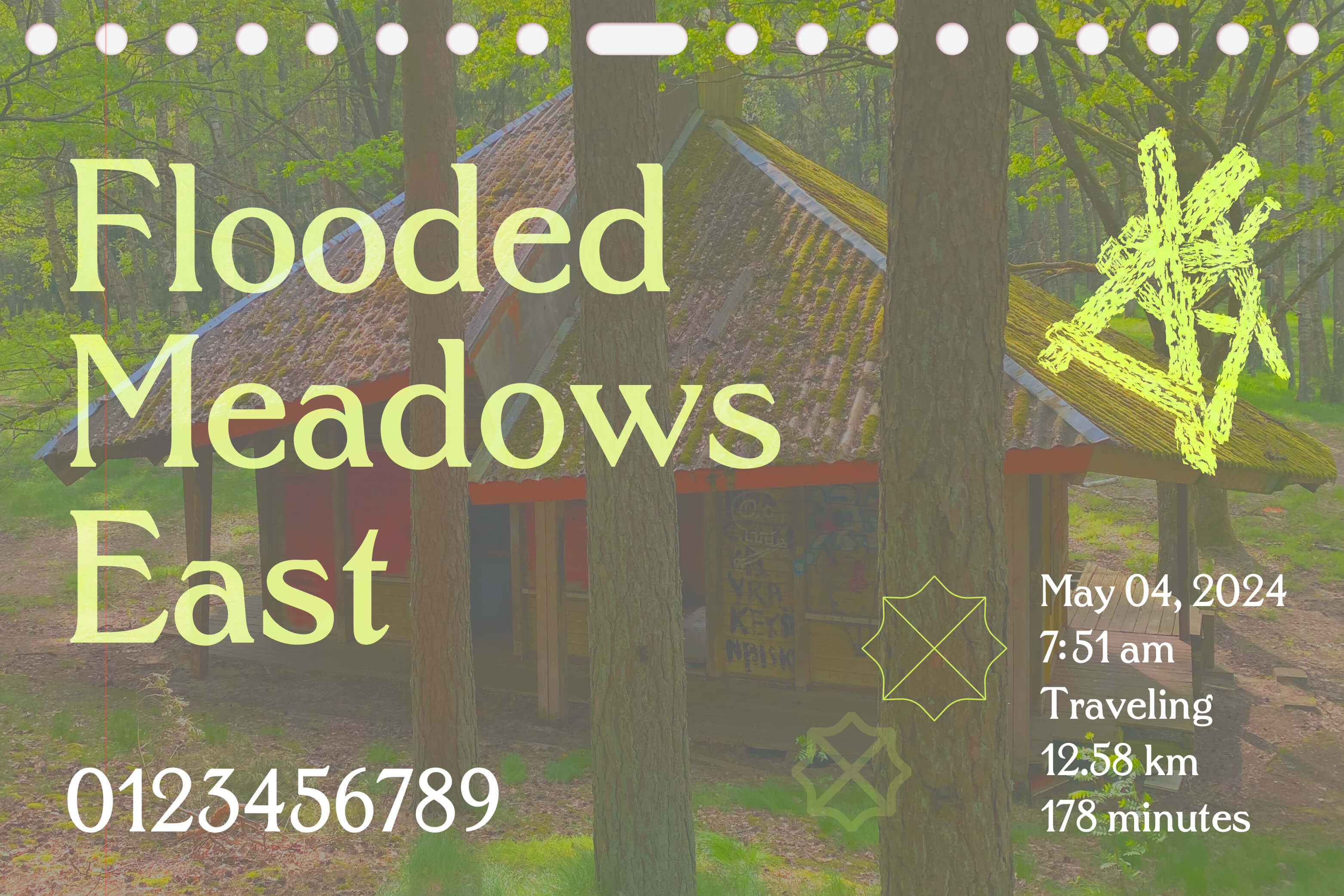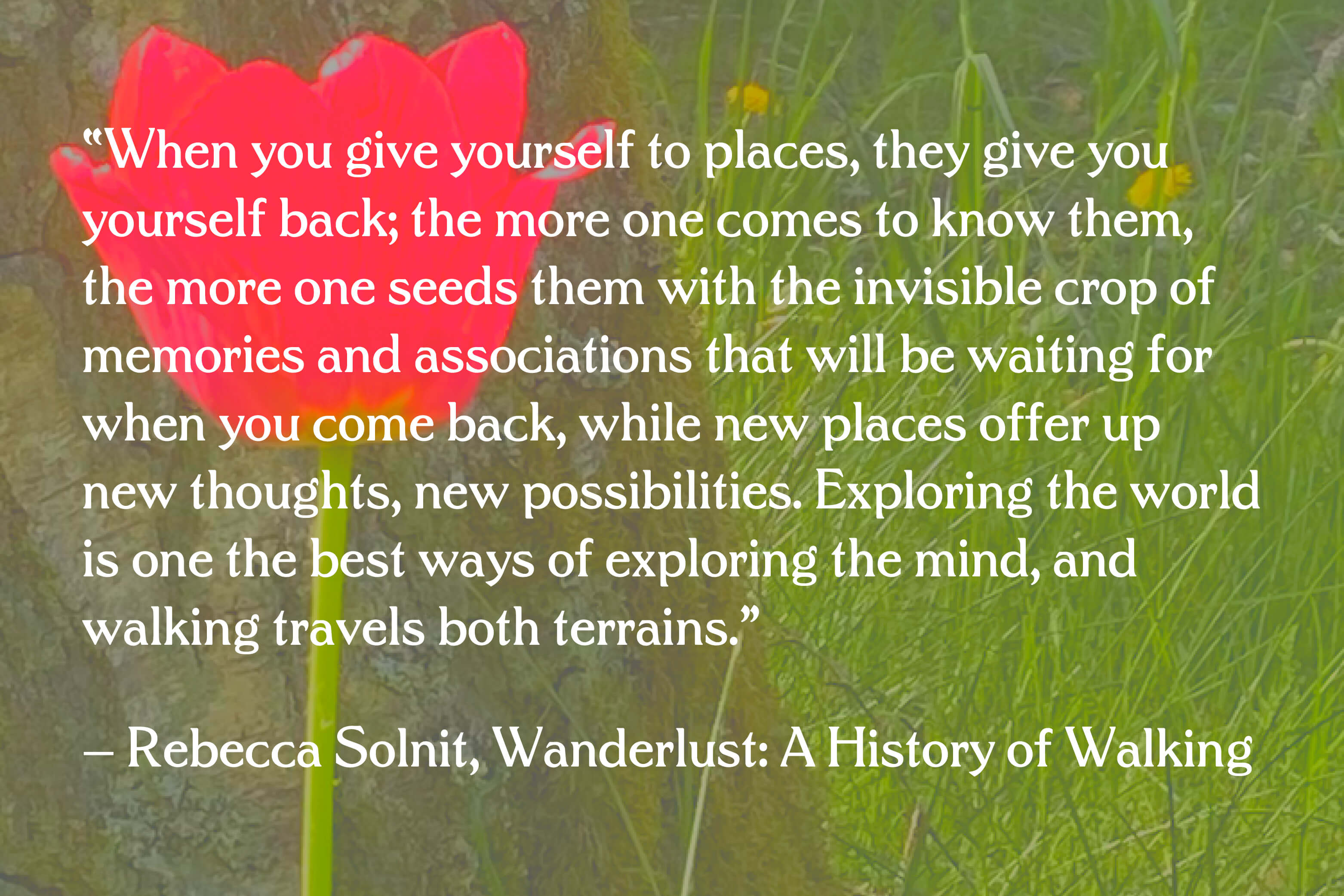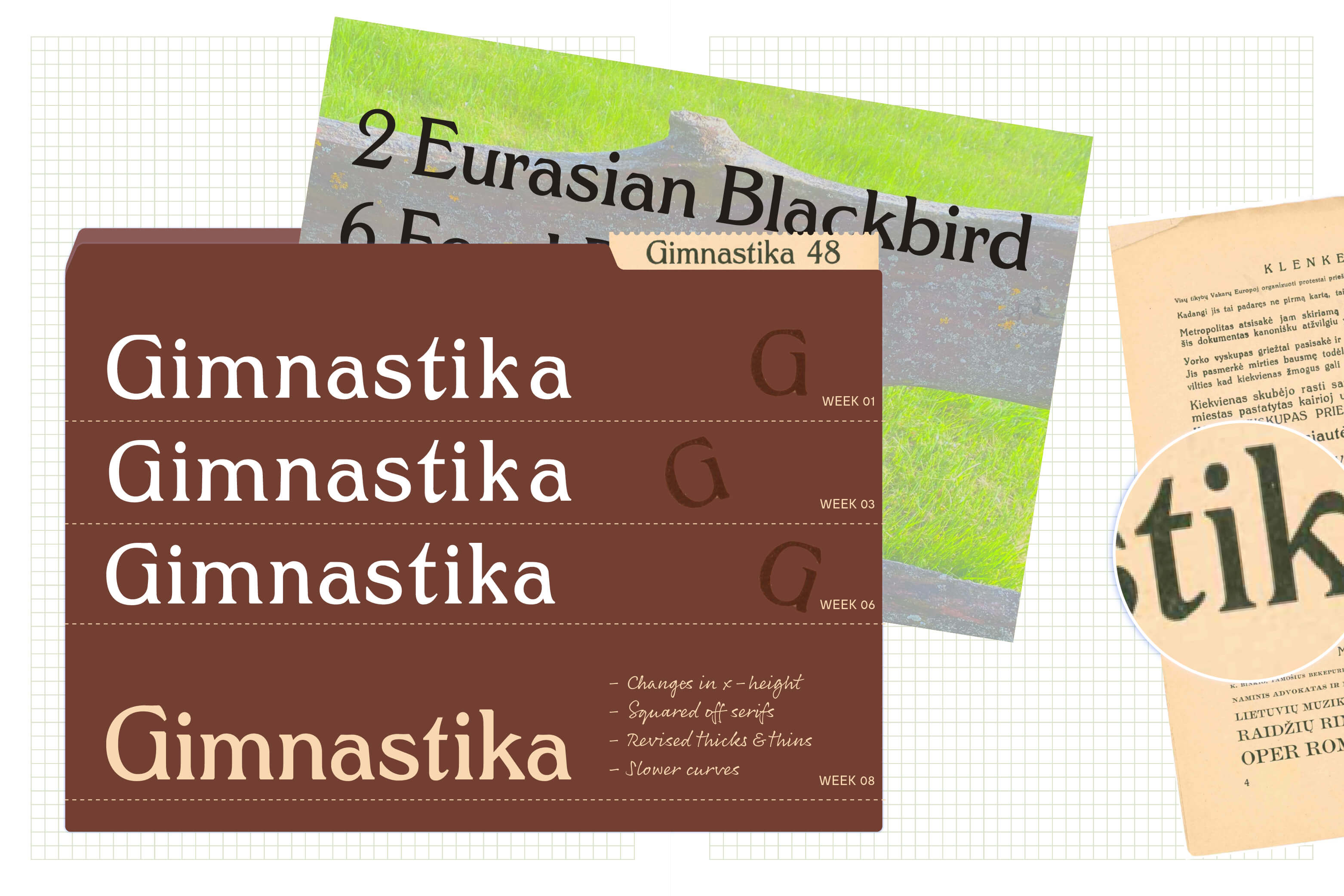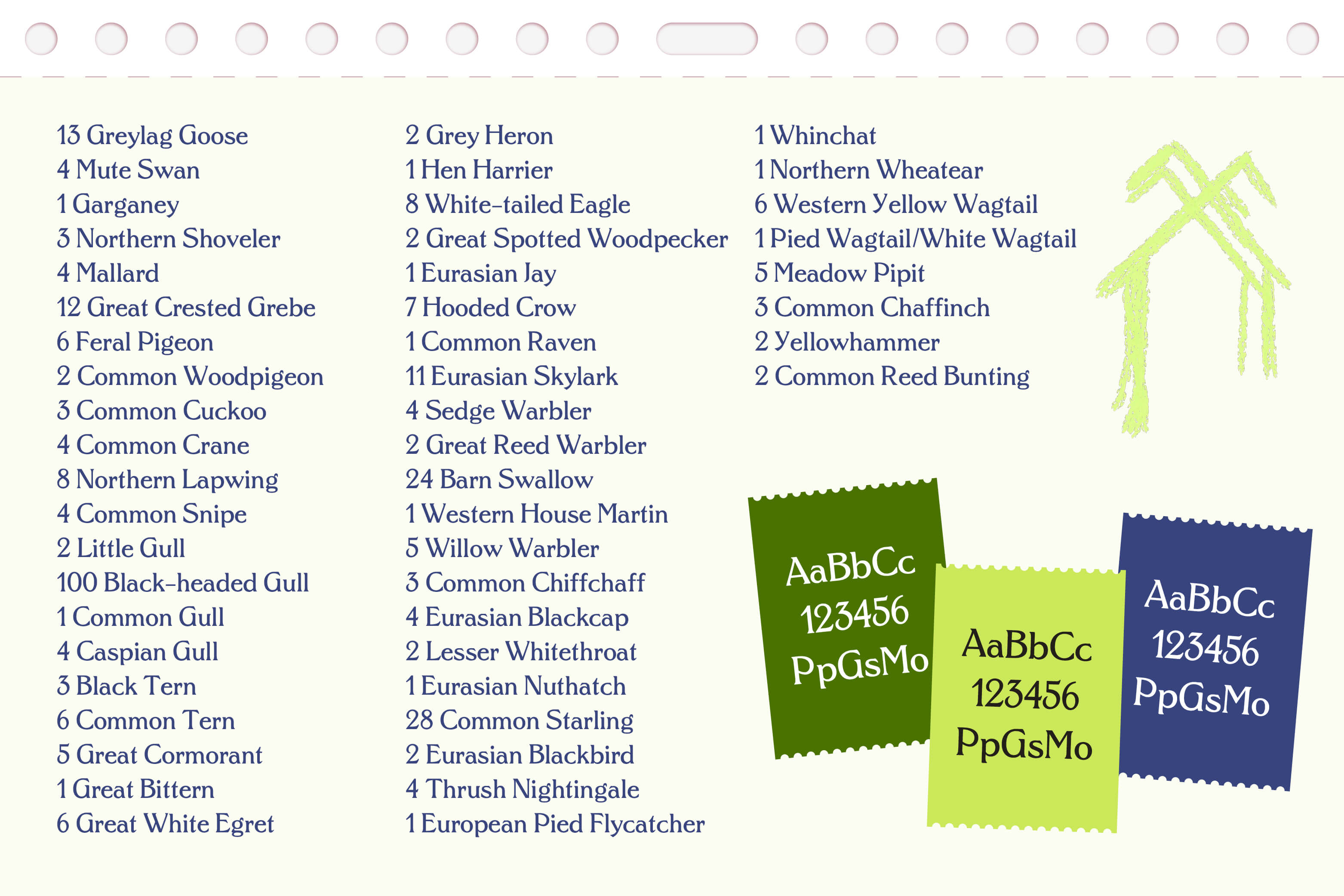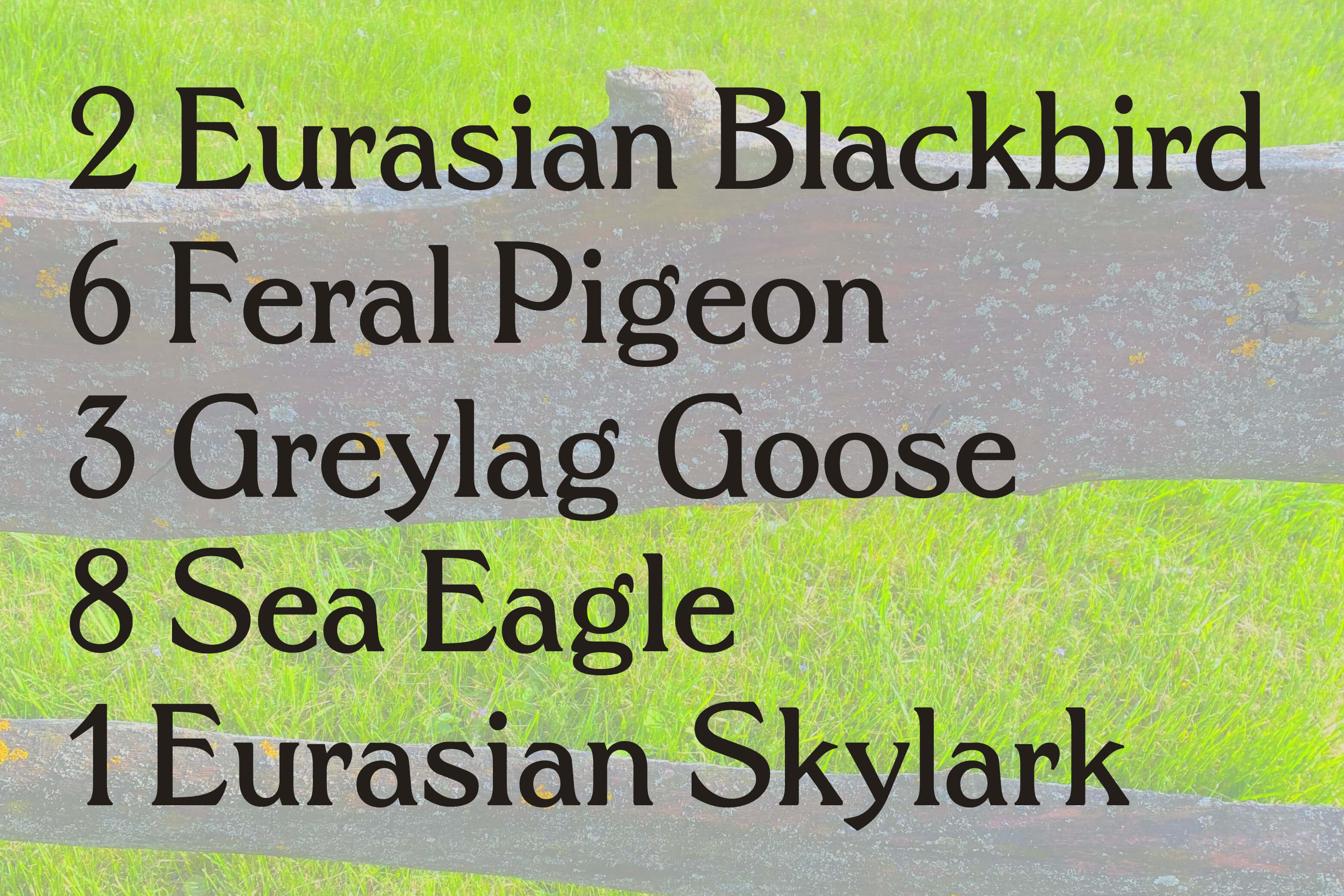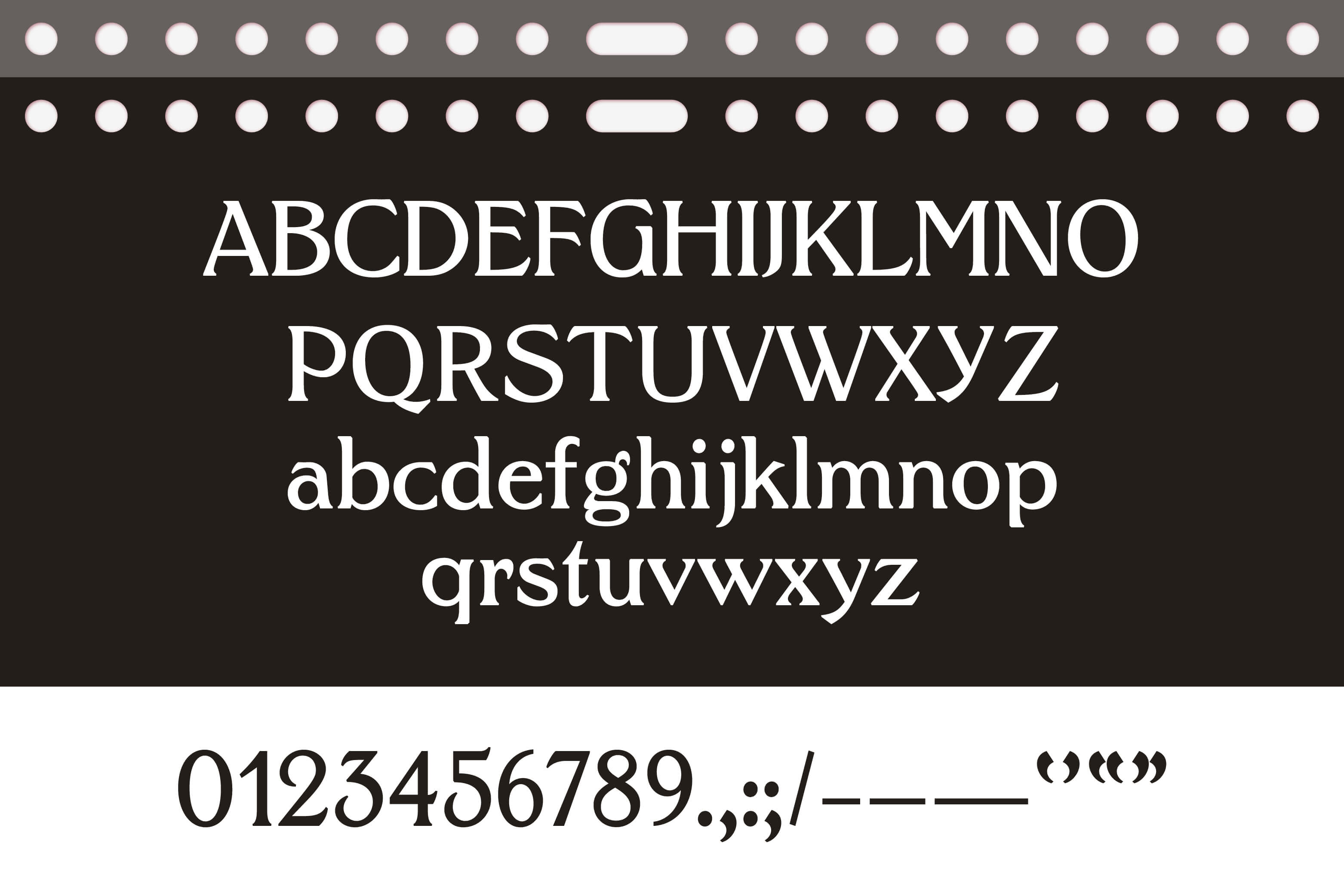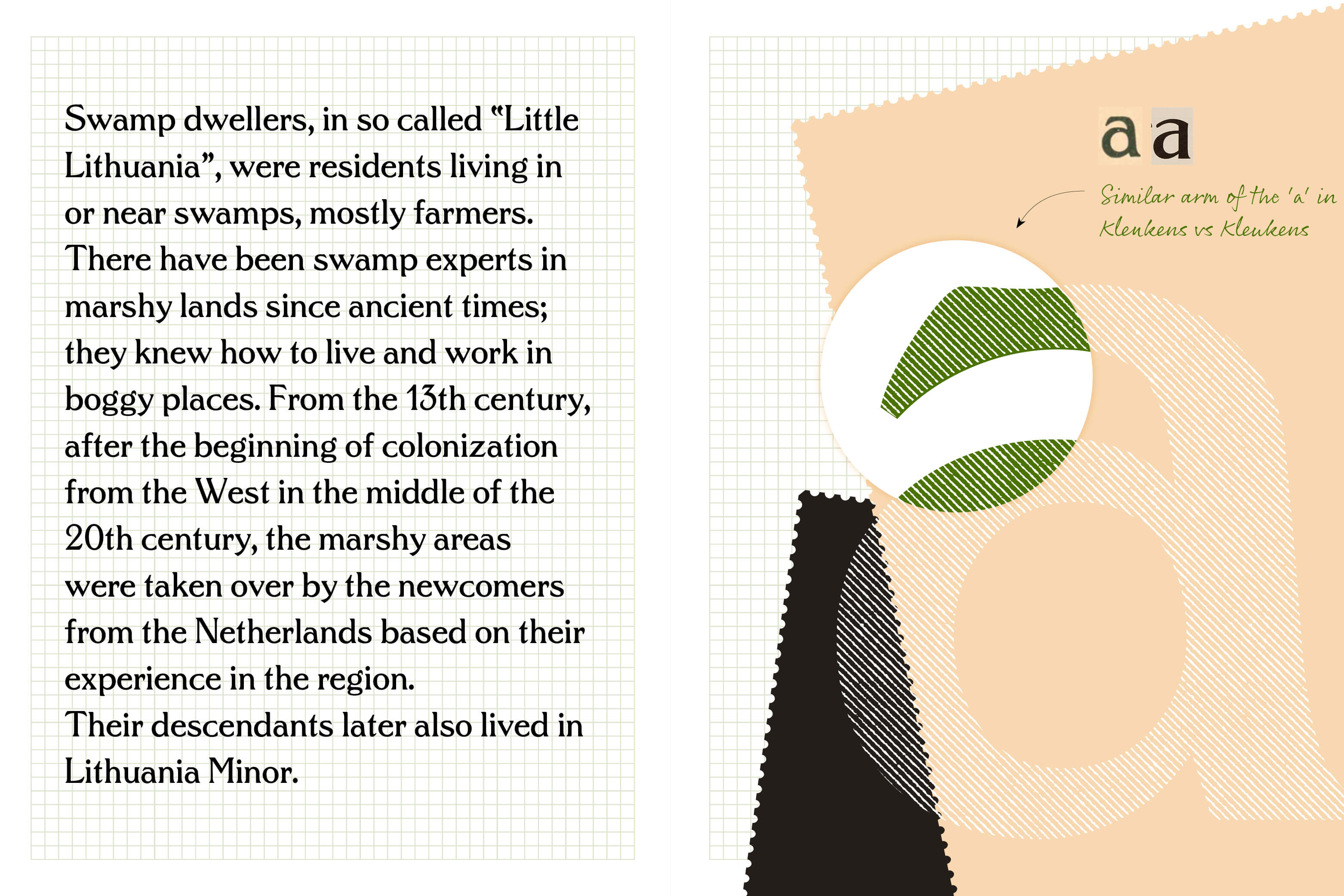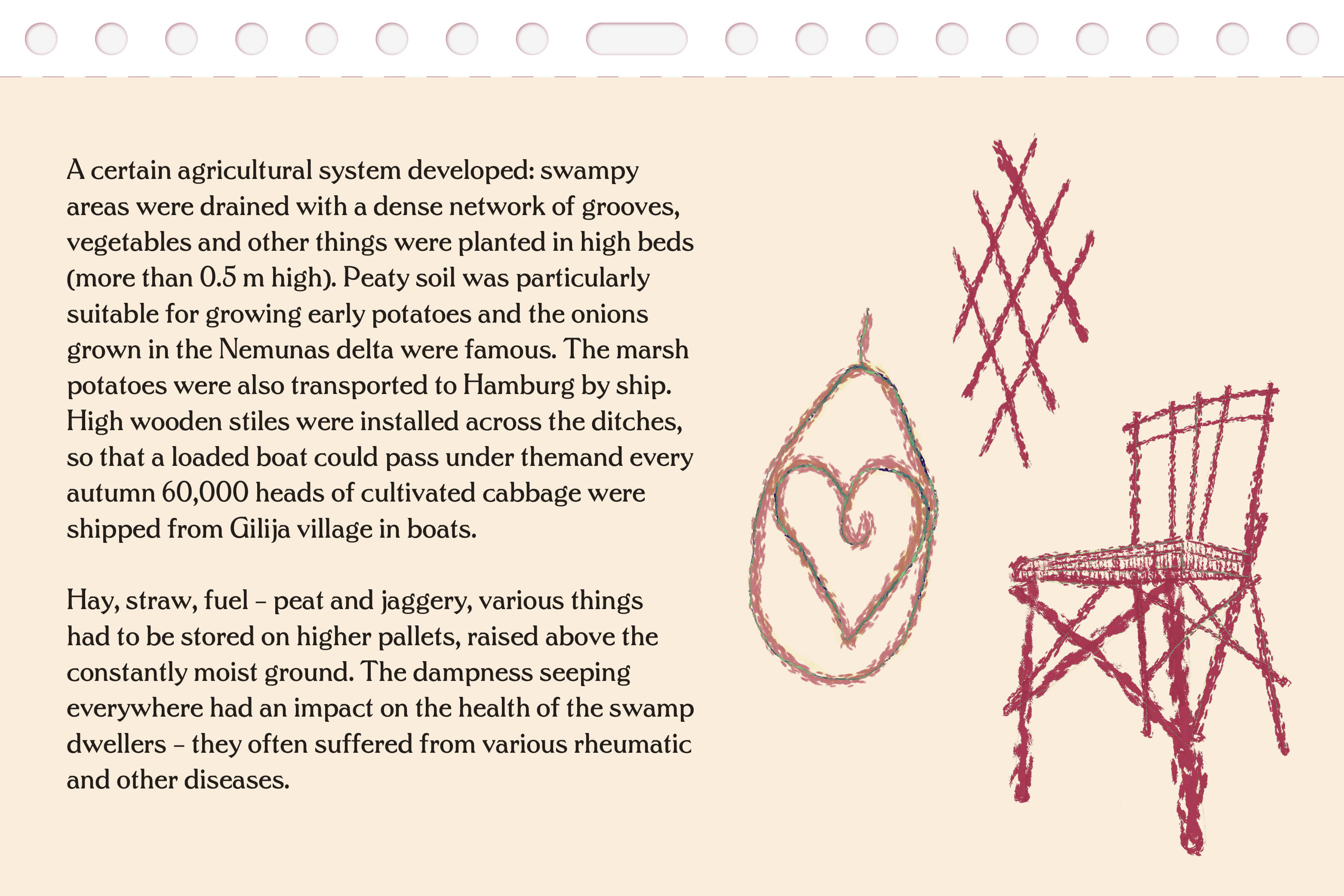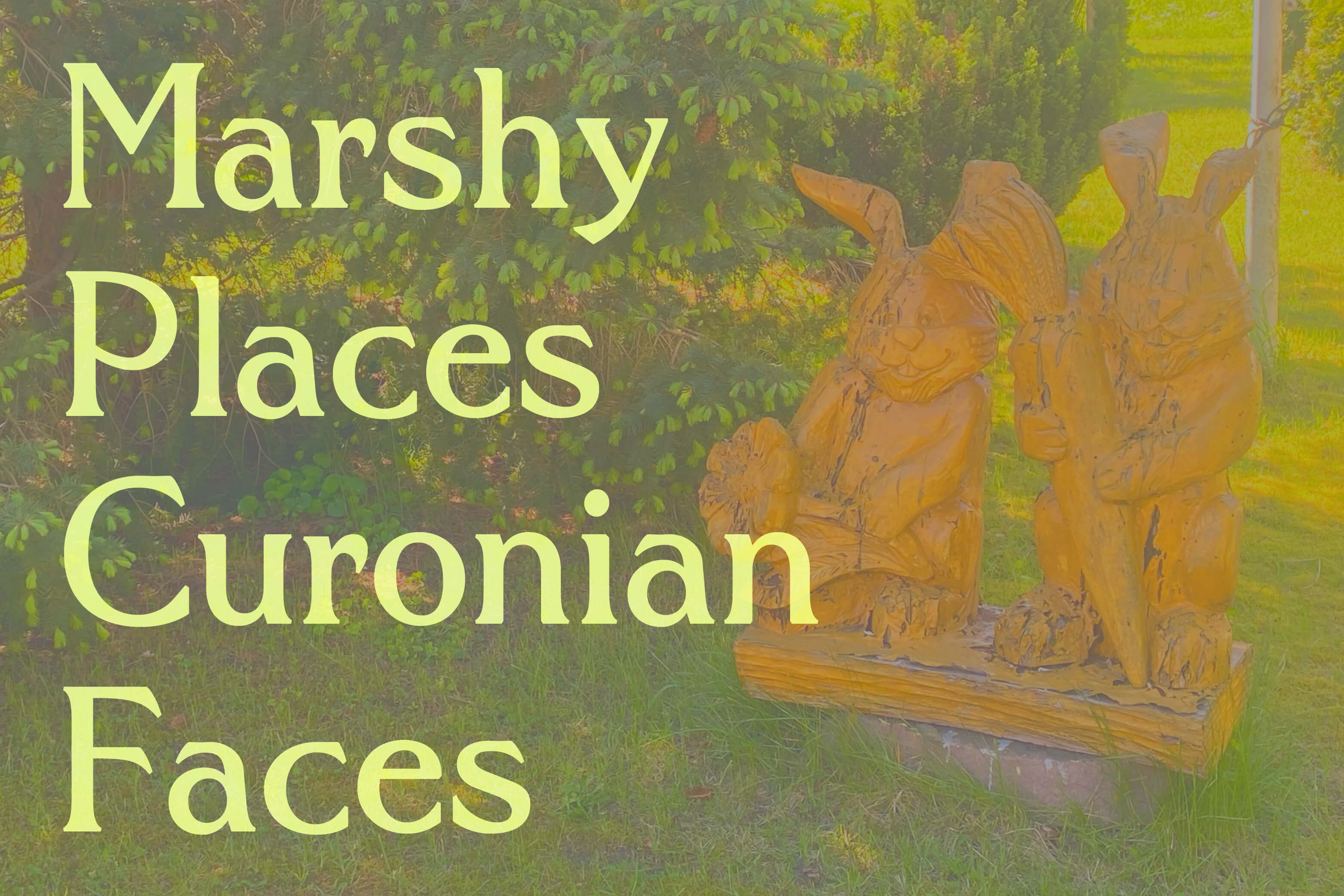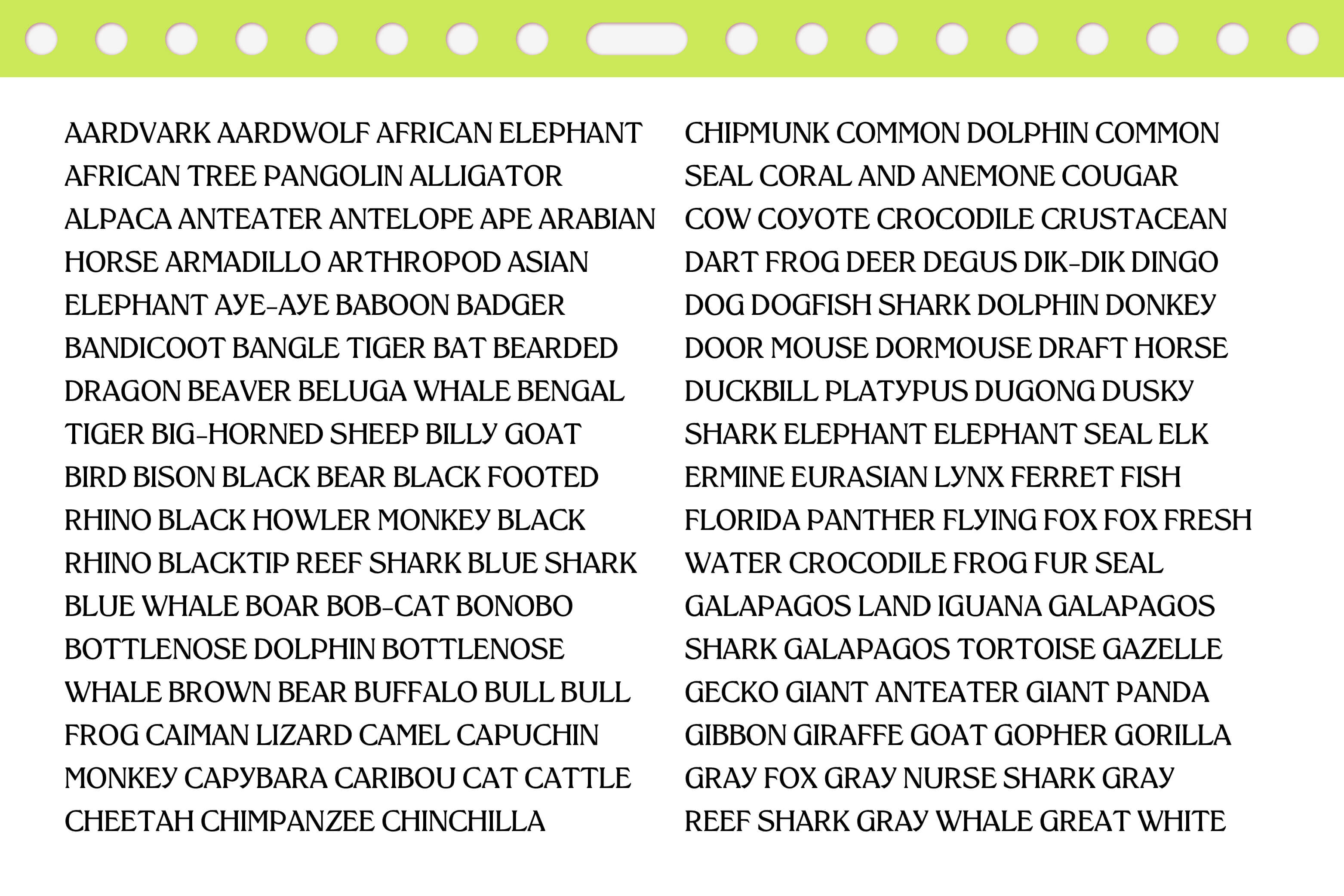
Klenkens
Laime Lukosiunaite
Klenkens is a revival of the redrawn version of Kleukens Antiqua, where both medieval letterforms and Art Nouveau sensibilities meet, released by Bauer in
1910. Klenkens’ stems swell towards a chiseled wedgyness that brings a loudness of typefaces used in the 1960-70s. The
“G” is slumpy, with a crane-like neck, the “r” curls into a claw-like terminal and the “A” carries shuffle-footed inward
facing serifs; all details drawing it closer the sinuous curves in nature, inclining to wag along with Art Nouveau. It’s
fancy in its own right, straddling the coat-tails of its original heroed, ornate typeface of that decade.
Kleukens Antiqua was released in the last year of the Art Nouveau movement, when Friedrich Wilhelm Kleukens and his
colleagues left the aesthetic ideals of Art Nouveau behind them, freeing typographic form from the elaborate
ornamentation and pushed their ideas of artistic modernity.
I came across this simplified version of Kleukens Antiqua in a type specimen from a Lithuanian foundry called “Zaibas” (“Lightning”), under the name of
Klenkens. I love the approach of simply flipping the letter “u” for a quick name change. Klenkens is a possible
localisation of the original Kleukens, that renders the personality of the original lavishly decorated 1910 type more
casual. It seems that even if the original matrix was imported into the Lithuanian foundry, it was not copied letter by
letter, but redrawn, as not all of the letters bear the same exact design.
"Lightning" was a printing house and a foundry that operated in Lithuania from 1919–48, printing in-house publications,
student newspapers, art, culture and radio magazines. During the period of the Nazi occupation, they printed weekly
liberation-oriented publications. In 1944, part of the employees of the printing house left for Germany and taking part
of the equipment, they continued to print Lithuanian newspapers in the refugee camps there. The foundry's specimen is
all set in Klenkens, which may lead us to believe that it was favored in-house at the foundry, highly intended for sale.
The history behind the German-Lithuanian assimilation runs deep through the world of clandestine publishing houses in
Lithuania-Minor region (former East Prussia populated by ethnic Lithuanians up to 1945), where a lot of forbidden
literature was printed during the Lithuanian press ban. This is when Lithuanian book carriers smuggled Lithuanian
language books printed in the Latin alphabet into Lithuanian-speaking areas of the Russian Empire, defying a ban on such
materials in force from 1864 to 1904. Opposing imperial Russian authorities' efforts to replace the traditional Latin
orthography with Cyrillic, and transporting printed matter from as far away as the United States to do so, the book
smugglers became a symbol of Lithuanians' resistance to Russification.
There were many intricate cultures that formed in this region, from the Curonians, 13c. pagan tribe living on the Baltic
Sea shores, to the swamp dwellers, who migrated in 19c. after Prussia and Germany adopted the state programs of internal
colonization and the creation of marshland colonies, the mass absorption of large high marshes in Lithuania Minor began.
The Klenkens typeface has re-traced these layered folk histories that have been channeled into sketch work and photos
during my residency in that same region this spring.